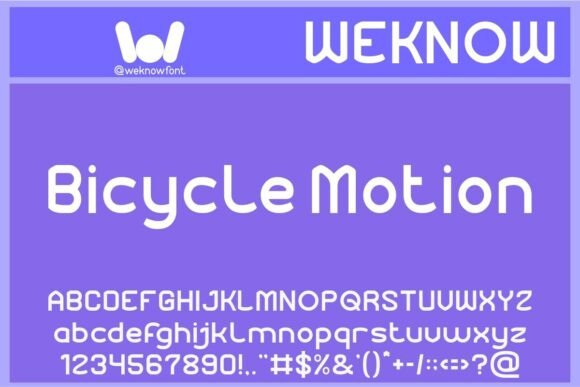
The Ultimate Design Game-Changer: Bicycle Motion Font
I’ll never forget the design struggle I faced while working on a sci-fi themed project. My client wanted a font that would transport their audience to a futuristic world, but I was stuck with the usual sans serifs that just didn’t cut it. That’s when I stumbled upon Bicycle Motion, a game-changing typeface that instantly elevated my design. In this article, I’ll share my love for this versatile font, its features, and how to make the most of it in your creative projects.
A Personal Review: What I Love About Bicycle Motion
Here’s what makes Bicycle Motion a standout font:
- ✨ Smooth, geometric lines that exude modern sophistication
- ✅ Delightfully rounded terminals that add a touch of playfulness
- ⚡️ Perfect blend of techno and retro-futuristic aesthetics for a riveting sci-fi display
- 🎨 Versatile and highly adaptable for various design projects, from brand logos to magazine layouts
While Bicycle Motion is an amazing font, there are a few things to keep in mind:
- 🤔 Some characters may appear too similar, so make sure to test the font with your specific text
- ⚠️ Not ideal for body text due to its design as a display font
The Designer Inspiration Behind Bicycle Motion
Bicycle Motion was designed with the goal of creating a font that would blend modern sophistication with a touch of playfulness. The designer drew inspiration from retro-futuristic aesthetics and sci-fi themes, resulting in a typeface that’s both versatile and attention-grabbing.
| Font Name | Bicycle Motion Font |
| Author | weknow |
| What is Bicycle Motion best suited for? | Bicycle Motion is perfect for brand logos, eye-catching headlines, corporate identities, and creative projects that require a unique touch, such as apparel designs, music and movie titles, gaming interfaces, magazine layouts, book covers, comic dialogue, and cartoon captions. |
| Can I use Bicycle Motion for body text? | While Bicycle Motion is a beautiful font, it’s designed as a display font and may not be ideal for body text due to its size and line spacing requirements. |
| Is Bicycle Motion suitable for digital platforms? | Yes, Bicycle Motion is a versatile font that can be used on various digital platforms, including YouTube channels, Instagram stories, and websites. |